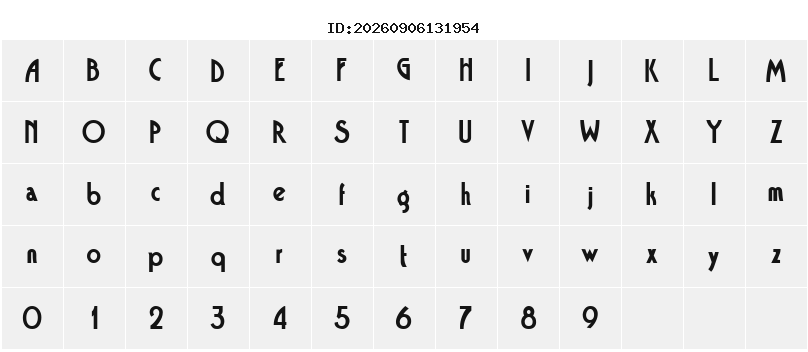
About Tango.ttf
Tango.ttf is a modern, elegant sans-serif font designed for ultimate readability and visual harmony. Perfect for branding, headlines, web design, and print materials.